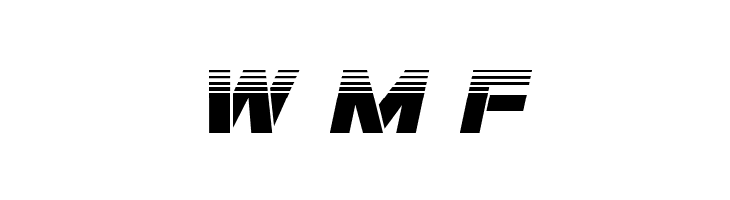
Speedwagon Halftone Font
A bold, halftone-effect font with a modern, geometric style.
Terran 3D Regular Font
A bold, 3D geometric font with a futuristic and tech-inspired design.
War Priest Expanded Italic Font
A bold, italicized font with sharp angles and expanded width for a striking appearance.
Universal Jack Laser Font
A futuristic, geometric font with bold, angular characters.
Vorpal Academy Italic Font
A bold, italic, futuristic font with geometric shapes and a double-layered outline.
Crime Syndicate Laser Regular Font
Earthrealm Leftalic Font
A bold, left-leaning italic font with angular, modern design.
Cornucopia of Dingbats Two Font
A diverse dingbat set of vintage-style illustrations and ornaments.
Thirteenth Floor 2 Font
A bold, hand-drawn font with textured outlines and an edgy style.
Pimp My Christmas Font
A whimsical collection of Christmas-themed illustrations with a playful, cartoonish style.
Holy Moly Font
A bold, textured font with a playful and dynamic style.
MidnightSnack BB Font
A bold, textured font with a playful, hand-drawn style.
Centaurus Italic Font
A bold, italic font with dynamic, angular strokes and a forward-leaning posture.
Escape Artist Bold Semi-Italic Font
A bold, semi-italic font with geometric and angular letterforms.
Mobile Infantry 3D Regular Font
A bold, 3D geometric font with a futuristic and industrial style.
Vindicator Regular Font
A bold, geometric font with sharp angles and tight spacing.
pokemona Font
Hand-drawn, doodle-style decorative font with playful icons.
Snetripp Font
An abstract, chaotic font with sharp, jagged edges and fragmented letterforms.
ArtistTracesTwo Font
Artistic, abstract display font with hand-drawn illustrations and modernist motifs.
TypesAntiques Font
Vintage-inspired dingbat font with playful, hand-drawn illustrations.